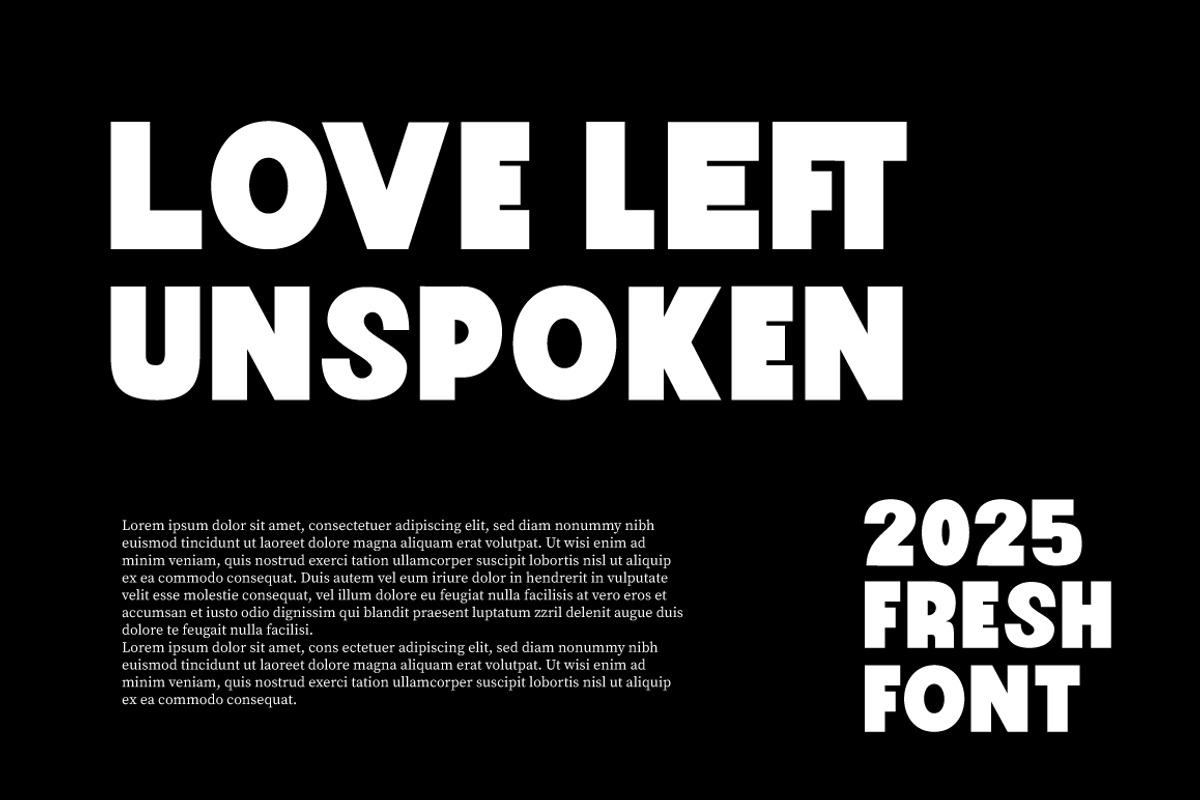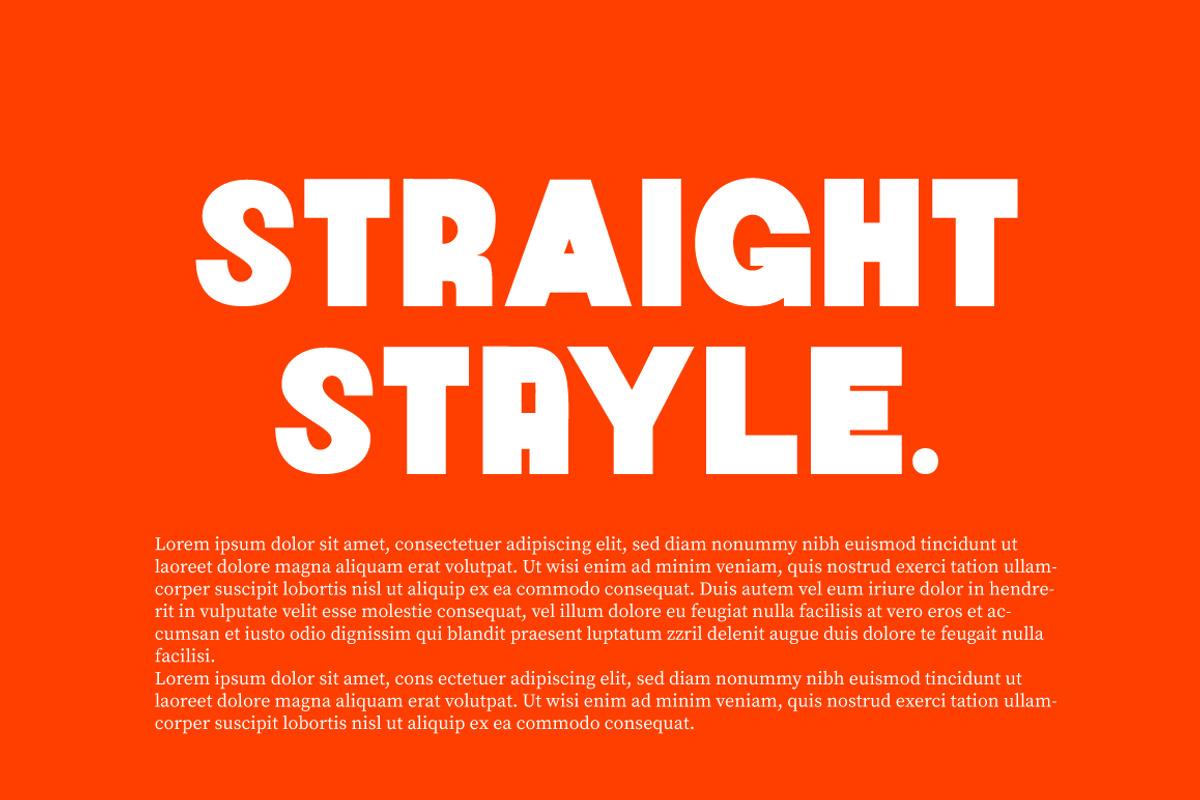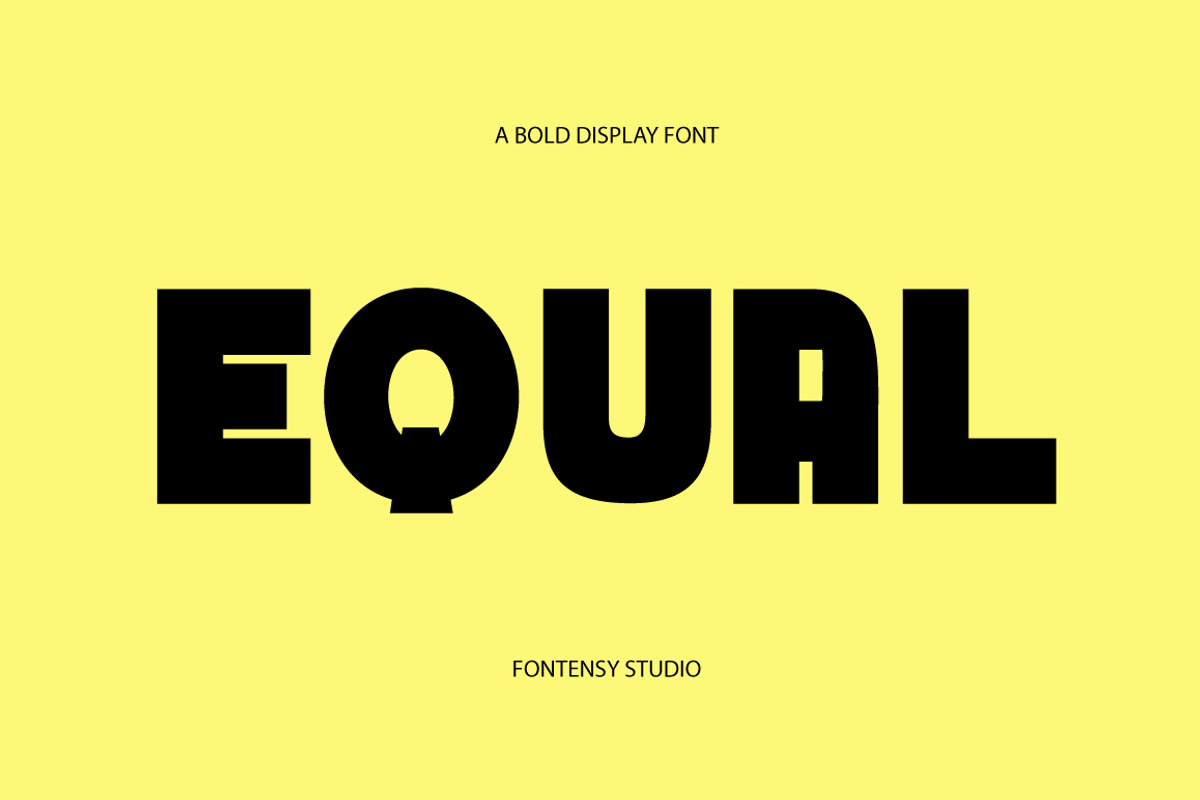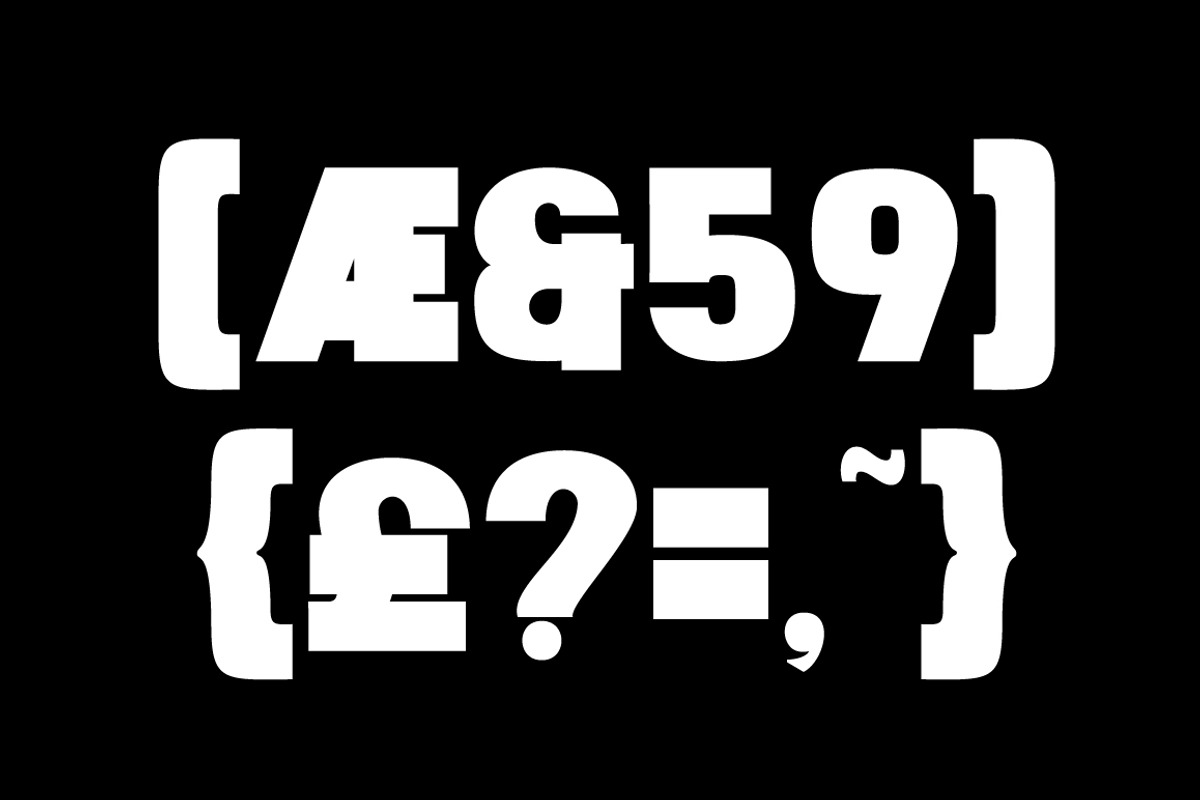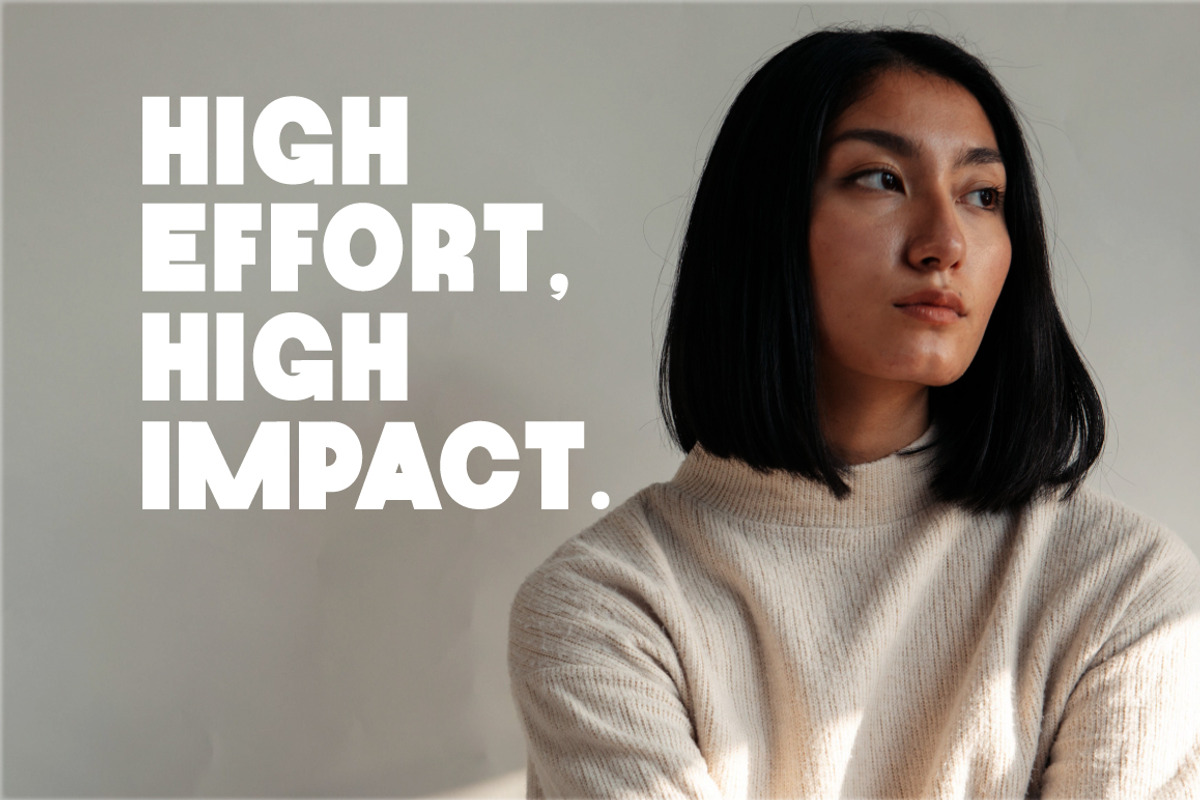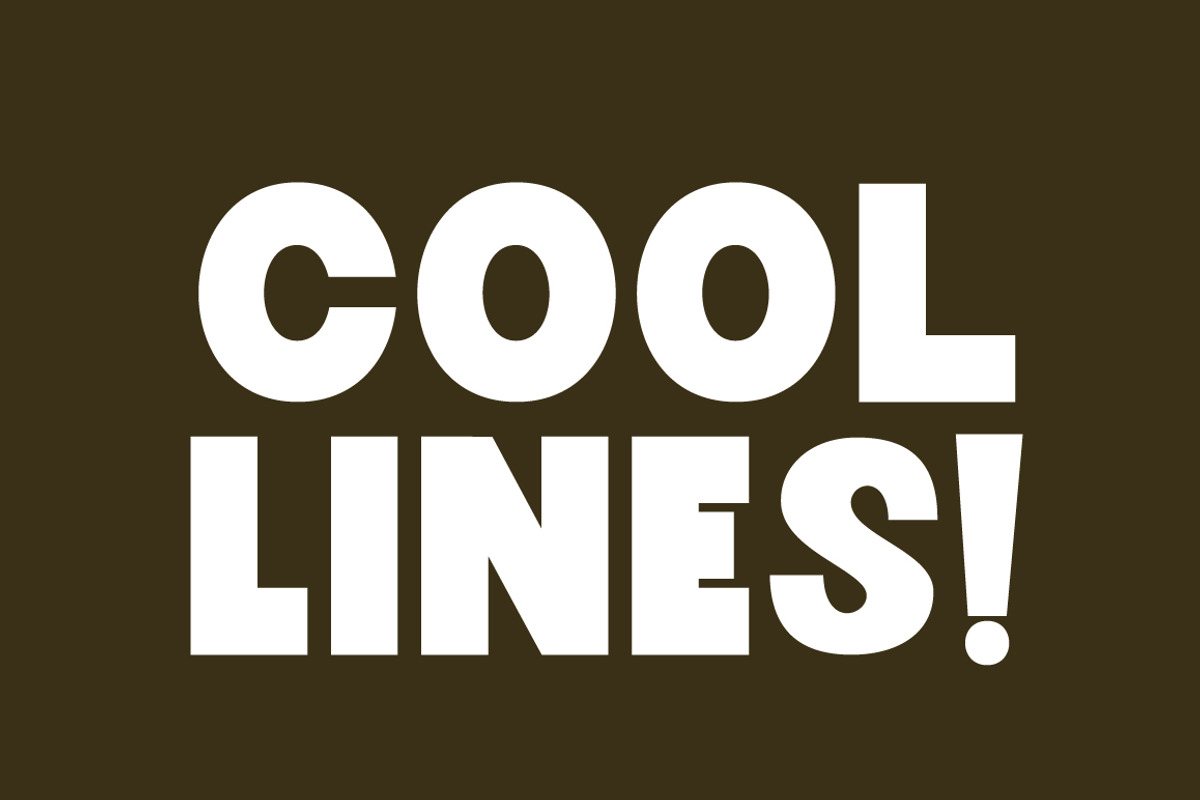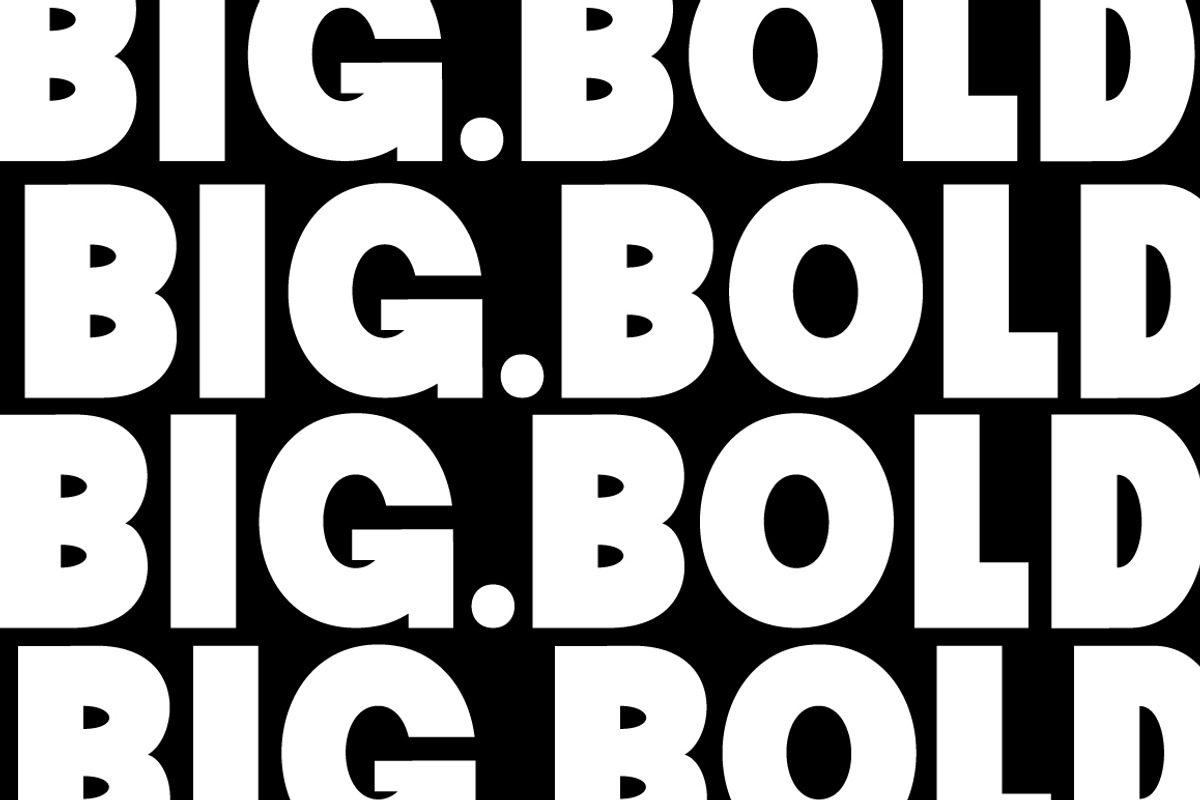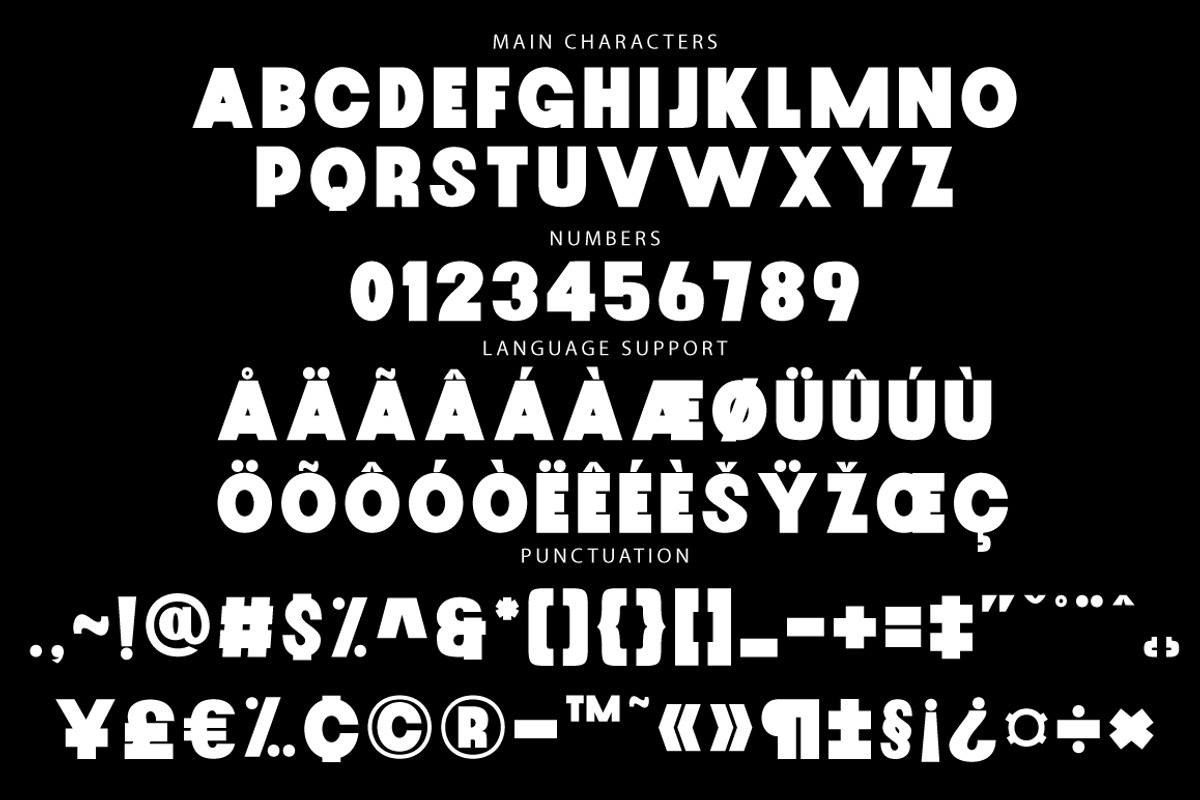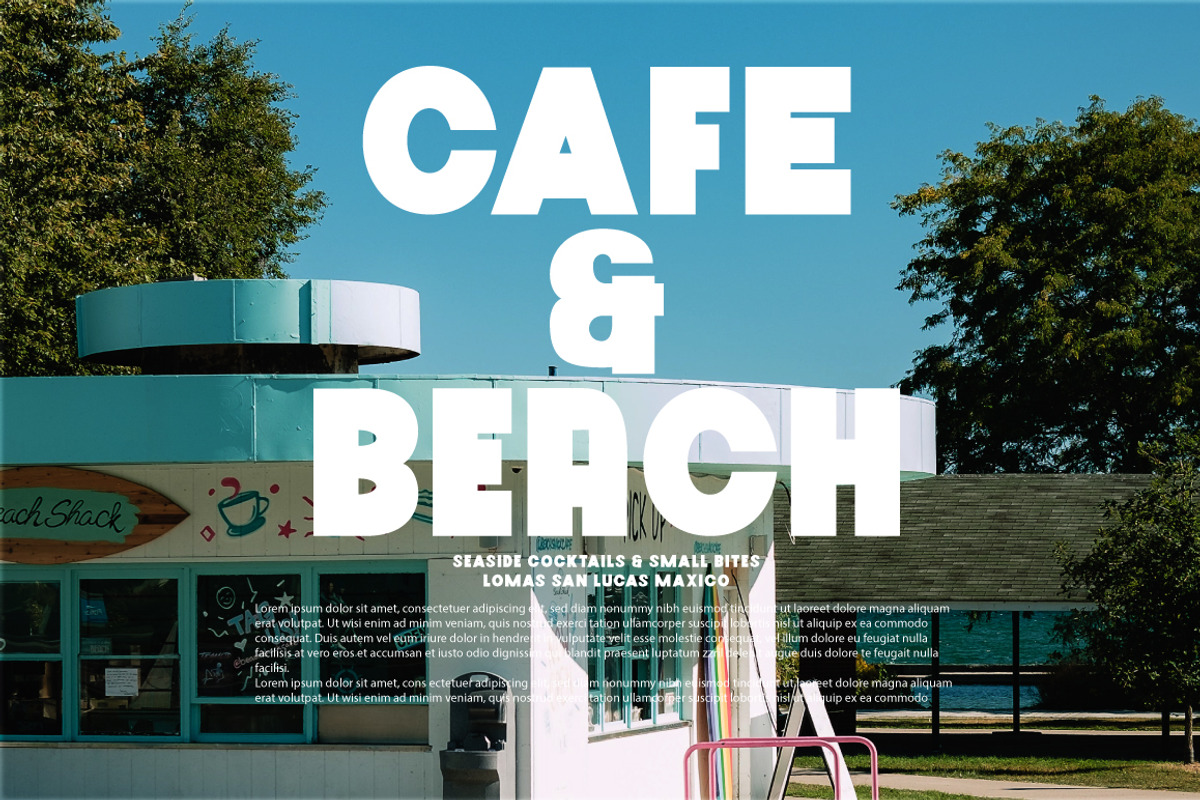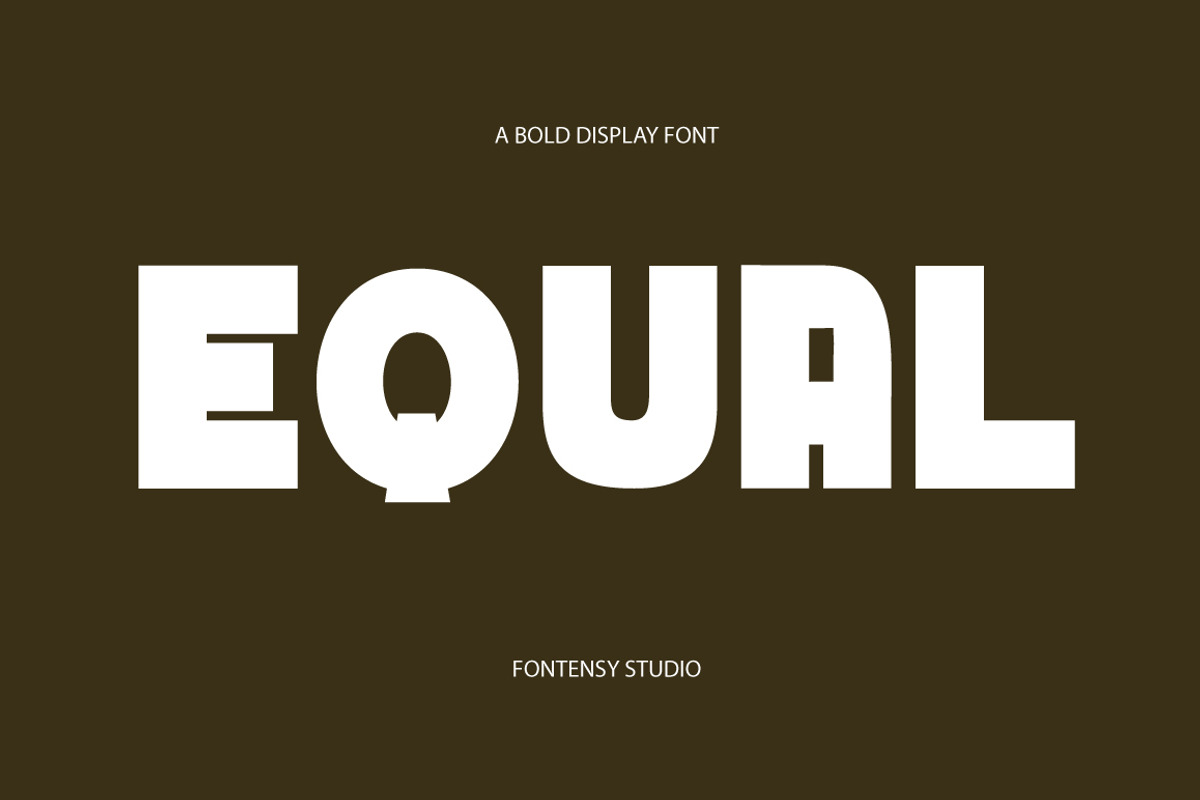
Equal Bold Sans Serif
Equal is a modern display font that combines bold geometry with playful minimalism. With rounded edges and a strong character design, this font is ideal for clean, typography-focused layouts.
Great for:
Minimalist branding & packaging Bold editorial design Clean menus & posters Social media graphics Features: